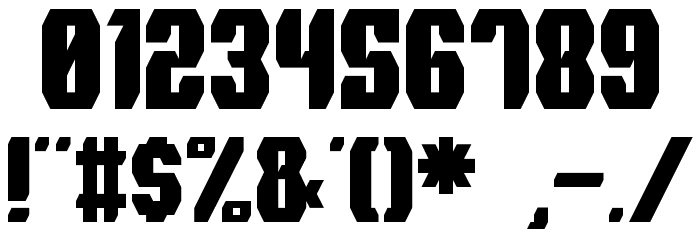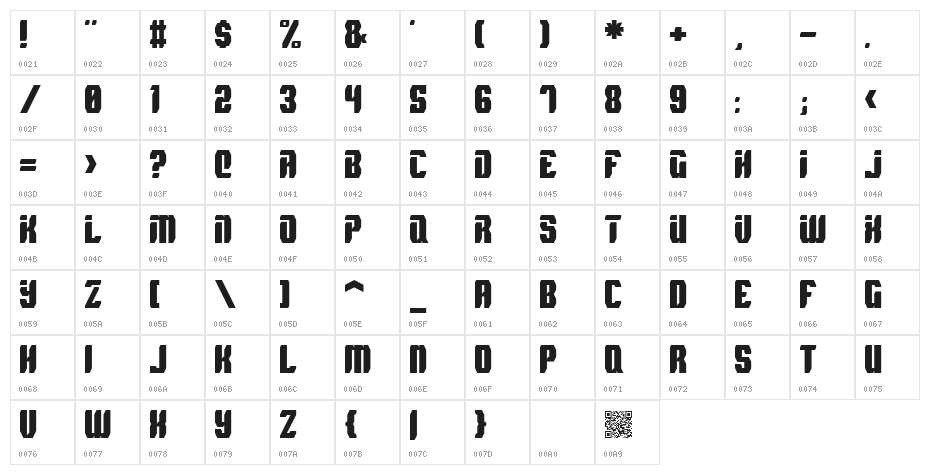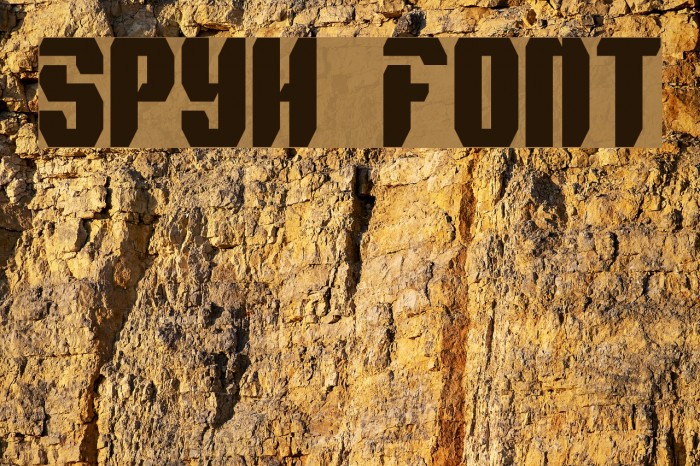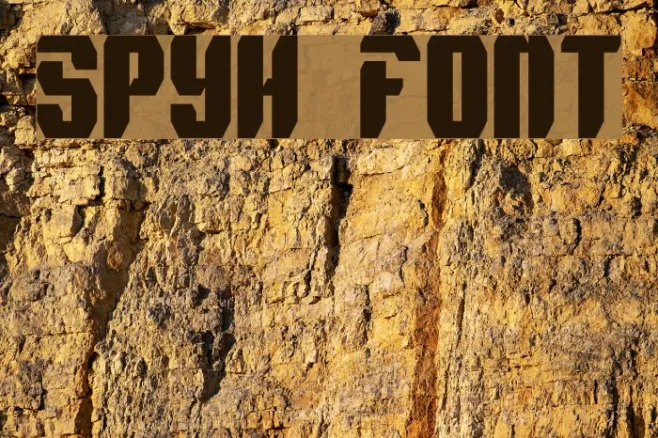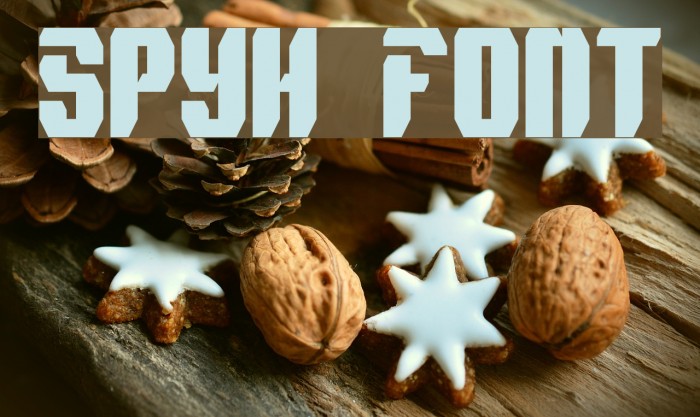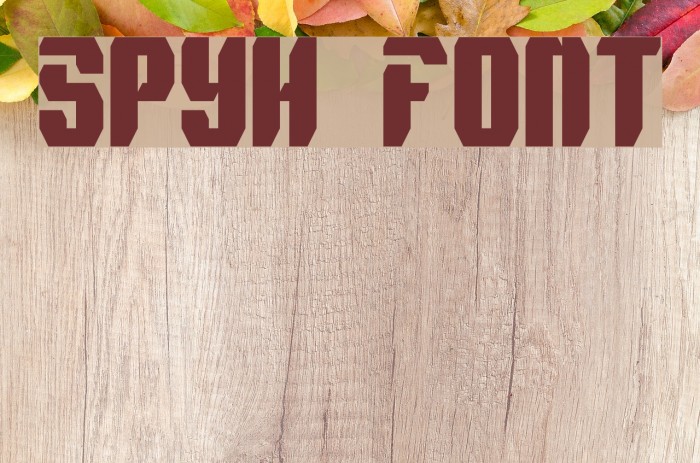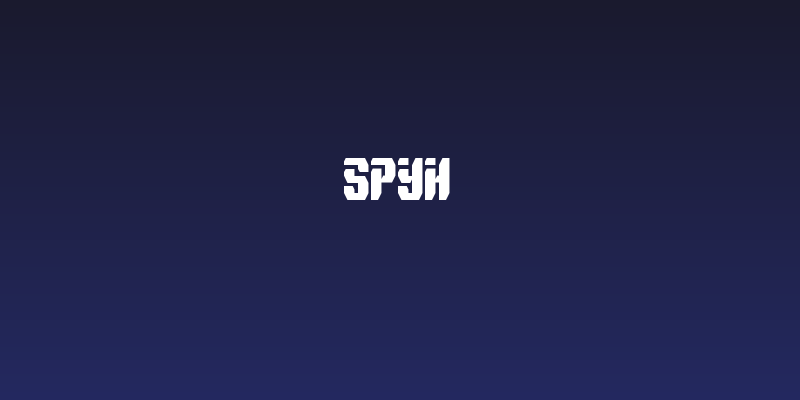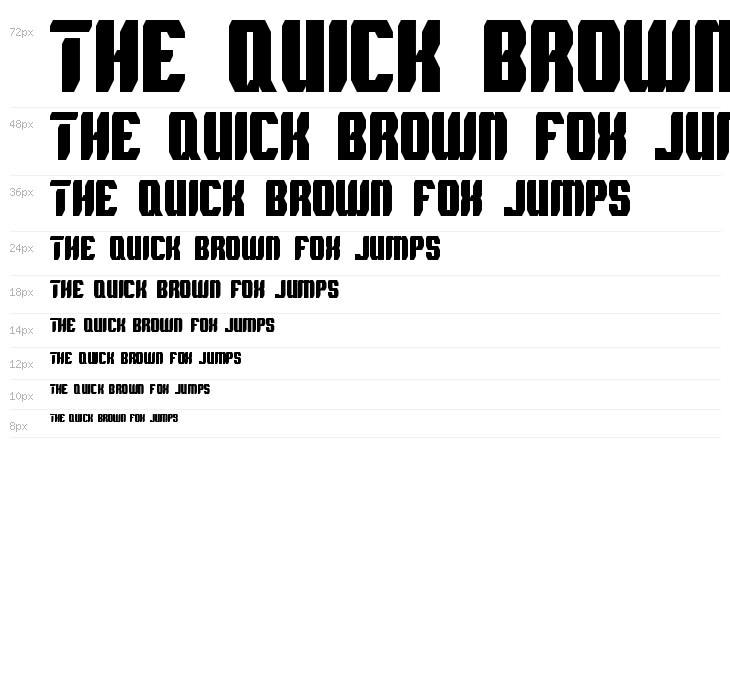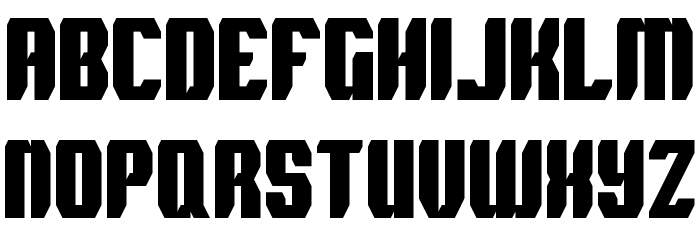
Spyh Font
Spyh Description
This font features a bold, geometric style with strong, angular lines and a distinct stencil-like appearance. The characters are constructed with sharp edges and cut-out sections, giving it a modern and industrial feel. The uppercase and lowercase letters maintain a consistent width, creating a uniform look across the typeface. Numbers and special characters follow the same design principles, ensuring cohesion throughout. The font's unique structure makes it stand out, ideal for projects that require a strong visual impact.
Proposed ProjectsIdeal for branding, posters, headlines, and any design requiring a strong, impactful typeface.